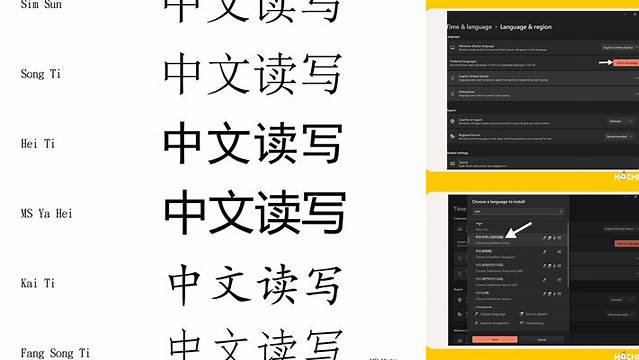
Install Chinese Fonts On Windows: A Step-by-Step Guide
Hey guys! Ever found yourself needing to read or type in Chinese on your Windows computer? It might seem daunting at first, but trust me, it's super easy to install Chinese fonts and get your system ready for Chinese characters. This comprehensive guide will walk you through everything you need to know, from the basic steps to troubleshooting common issues. We'll cover why you might need Chinese fonts, the different types available, and how to install them on various Windows versions. So, let's dive in and make your Windows PC multilingual!
Why Install Chinese Fonts?
Before we jump into the how-to, let’s talk about the why. Why would you need Chinese fonts on your computer? Well, there are tons of reasons! Maybe you're learning Chinese, communicating with friends or family who speak Chinese, or need to access documents or websites in Chinese. Perhaps you're a designer working on a project that requires Chinese typography, or a business professional dealing with Chinese clients. Whatever the reason, having Chinese fonts installed is essential for displaying and interacting with Chinese text correctly. Without the right fonts, Chinese characters might appear as boxes or gibberish, making it impossible to read or write in Chinese. Think of it like trying to read a book in a language you don't know – the symbols just won't make sense! So, installing Chinese fonts opens up a whole new world of possibilities, allowing you to engage with Chinese language and culture seamlessly on your Windows PC. It’s a simple yet powerful way to bridge the gap and make your digital experience more inclusive and versatile. Plus, it's a great way to impress your friends with your tech-savviness! Seriously, though, being able to handle different languages on your computer is a valuable skill in today's globalized world. So, let's get those fonts installed and unlock the potential of Chinese on your Windows system. Whether it's for work, study, or just personal interest, having the right fonts is the first step towards a more connected and multilingual digital life. And the best part? It's easier than you think! So, stick with me, and we'll have your computer speaking Chinese in no time.
Understanding Chinese Font Types
Okay, before we actually install Chinese fonts, let's get a little nerdy for a second and talk about the different types of fonts you might encounter. Just like in English, there are different styles of Chinese characters, each with its own unique look and feel. Understanding these styles will help you choose the right font for your needs and appreciate the rich history of Chinese calligraphy. There are primarily two main categories of Chinese fonts: Simplified Chinese fonts and Traditional Chinese fonts. Simplified Chinese is the standardized form of written Chinese used in mainland China, while Traditional Chinese is used in Taiwan, Hong Kong, and Macau. The key difference lies in the complexity of the characters – Simplified Chinese characters have fewer strokes, making them easier to learn and write. Within these two categories, you'll find various font styles, such as Song (宋体), Hei (黑体), Kai (楷体), and Fangsong (仿宋). Song fonts are similar to serif fonts in English, known for their elegant and readable style, often used in books and newspapers. Hei fonts are sans-serif fonts, offering a clean and modern look, commonly used for headings and digital displays. Kai fonts resemble traditional Chinese calligraphy, with a flowing and artistic style, while Fangsong fonts are a blend of Song and Kai, offering a balance between readability and elegance. Choosing the right font depends on your specific needs and preferences. For formal documents, Song or Fangsong fonts might be a good choice, while Hei fonts are great for websites and presentations. If you're looking for a more artistic touch, Kai fonts can add a unique flair. It's also important to consider the character set supported by the font. Some fonts may only support a limited number of characters, while others offer a more comprehensive range. Make sure the font you choose includes all the characters you need for your specific purpose. So, now that you have a basic understanding of Chinese font types, you'll be better equipped to select the perfect fonts for your projects and communication. Remember, the right font can make all the difference in how your text is perceived, so take the time to explore different options and find the styles that resonate with you. And don't worry, you don't need to become a font expert overnight! Just having a basic understanding of the different styles will help you make informed decisions and appreciate the beauty of Chinese typography.
- Install language features: You'll be presented with a list of optional language features to install, such as language pack, speech recognition, and handwriting. Make sure the "Install language pack" box is checked. You can also choose to set the language as your Windows display language, but this is optional. Click the “Install” button to start the installation process. Windows will then download and install the necessary files, including the Chinese fonts. This might take a few minutes, depending on your internet connection speed. Once the installation is complete, you'll see the Chinese language added to your list of preferred languages. And that's it! You've successfully installed Chinese fonts on your Windows 10 system. Now you can start typing and reading in Chinese! But wait, there's more! In the next section, we'll talk about how to switch between different input methods so you can actually type Chinese characters. So, stay tuned!
Setting Up Chinese Input Methods
Okay, so you've installed Chinese fonts – awesome! But having the fonts is only half the battle. To actually type in Chinese, you need to set up a Chinese input method. Think of it like this: the fonts are the characters themselves, and the input method is the keyboard layout that lets you type those characters. Windows 10 comes with several built-in Chinese input methods, such as Pinyin and Zhuyin (Bopomofo). Pinyin is the most commonly used input method for Simplified Chinese, where you type the pronunciation of a character using the Roman alphabet, and the system suggests corresponding Chinese characters. Zhuyin, also known as Bopomofo, is used primarily in Taiwan for typing Traditional Chinese, using a set of phonetic symbols. Here’s how to add and configure a Chinese input method in Windows 10:
- Go back to the Language settings: If you're not already there, open the Settings app, go to "Time & Language," and select "Language." This is where we'll be adding the Chinese input method.
So, there you have it! You've successfully navigated the world of installing Chinese fonts on Windows. Whether you're using the latest Windows 10 or an older version like Windows 7 or 8, you now have the knowledge and tools to make your system multilingual. We've covered everything from understanding different Chinese font types to setting up input methods and troubleshooting common issues. You're now equipped to read, write, and communicate in Chinese on your computer, opening up a world of possibilities for learning, connecting, and creating. Remember, installing Chinese fonts is more than just a technical task; it's a gateway to a rich culture and language. By enabling your computer to display Chinese characters, you're breaking down barriers and embracing diversity. Whether you're a student, a professional, or simply someone with an interest in Chinese language and culture, having Chinese fonts installed is a valuable asset. It allows you to access a vast amount of information, connect with people from different backgrounds, and express yourself in new and exciting ways. The ability to type and read in Chinese can enhance your learning experience, broaden your career opportunities, and enrich your personal life. So, take pride in your newfound skills and embrace the journey of learning and communicating in Chinese. And don't forget to share your knowledge with others! If you have friends or family who are also interested in installing Chinese fonts, share this guide with them and help them unlock the potential of their Windows systems. Together, we can create a more multilingual and interconnected digital world. So go forth, explore the world of Chinese typography, and let your computer speak a new language! The possibilities are endless, and the journey is just beginning. Happy typing, guys!